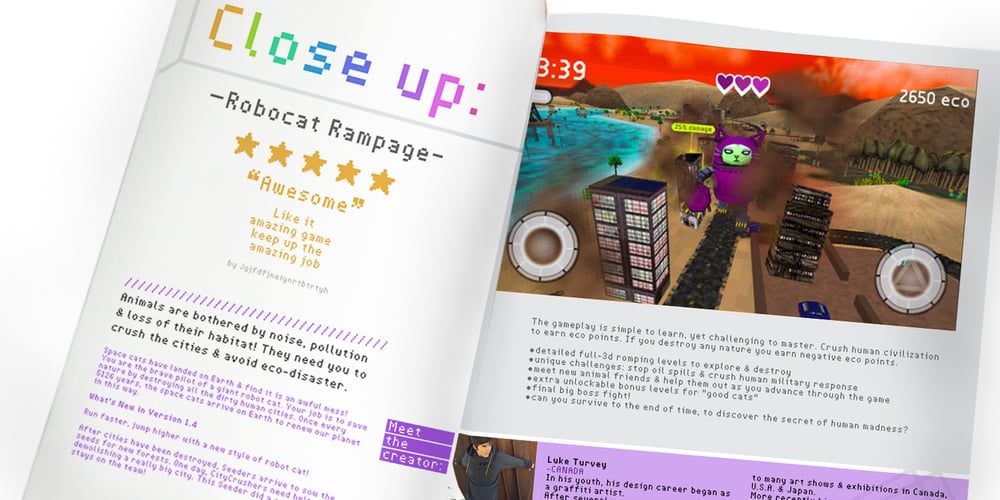
Pixapp Inter
Pixapp Inter font
Pixapp Inter Font Family was designed by Luke William Turvey and published by Okaycat. Pixapp Inter contains 1 styles and family package options. Pixapp Inter is a pixel font optimized for display on screen. Highly suitable for small text display in apps or on web. Pixapp Inter is a multilingual font appropriate for publishing to international environments.